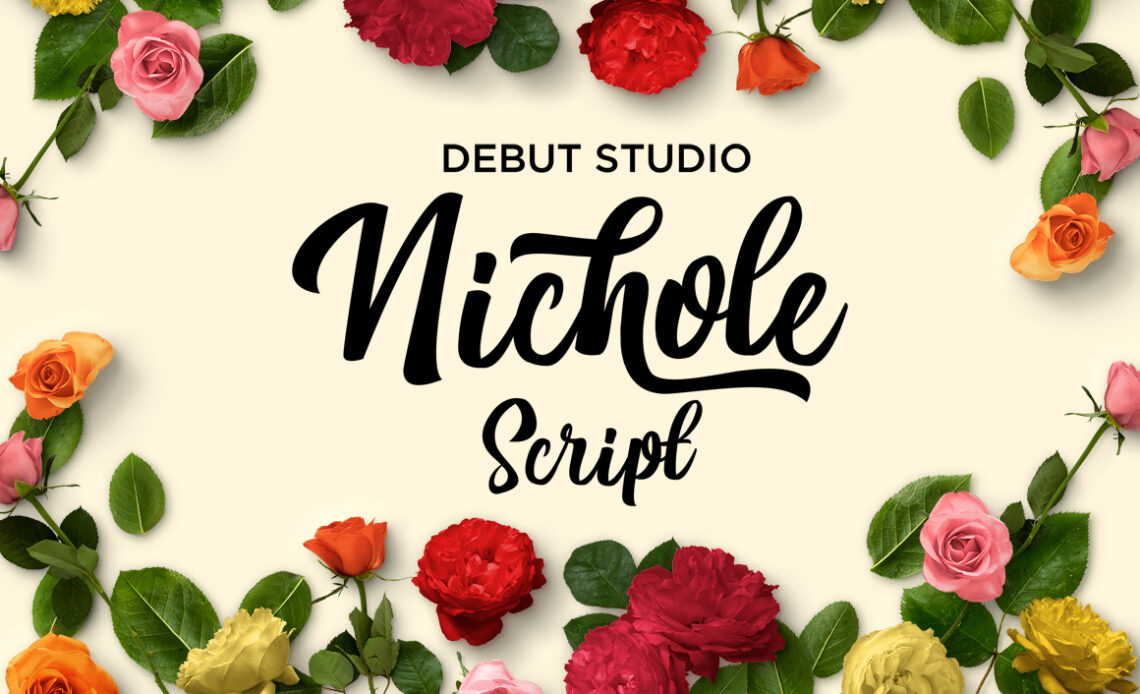
Prepare yourself to be captivated by the enchanting Nichole Script font, a masterpiece crafted by the renowned Debut Studio. This exquisite script font exudes a youthful exuberance and unbridled passion, captivating your senses with its modern and alluring style.
Step into a world of endless creative possibilities as you explore the depths of Nichole Script. Its meticulously crafted curves and delicate strokes dance across the page, inviting you to express your unique style and personality. Whether you're designing eye-catching displays or crafting heartfelt messages, this font is your perfect companion.
Unleash your inner artist and let your imagination soar with Nichole Script. Its versatility knows no bounds, empowering you to create designs that are both timeless and utterly captivating. From elegant invitations to vibrant social media graphics, this font will transform your words into works of art that leave a lasting impression.
But there's more to Nichole Script than meets the eye. It's not just a font; it's a gateway to a world of self-expression and emotional resonance. Its captivating curves evoke a sense of joy and excitement, while its delicate strokes whisper secrets of love and passion. With every stroke of the pen, you'll infuse your creations with a touch of magic that will resonate with your audience on a deeper level.
So why settle for ordinary when you can embrace the extraordinary? Choose Nichole Script today and embark on a creative journey that will ignite your soul and leave an indelible mark on the world. Let this enchanting font be your muse, guiding you towards designs that are both captivating and unforgettable.